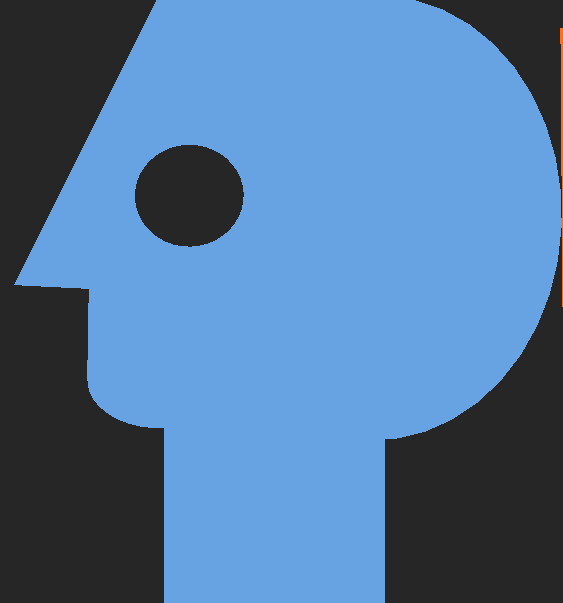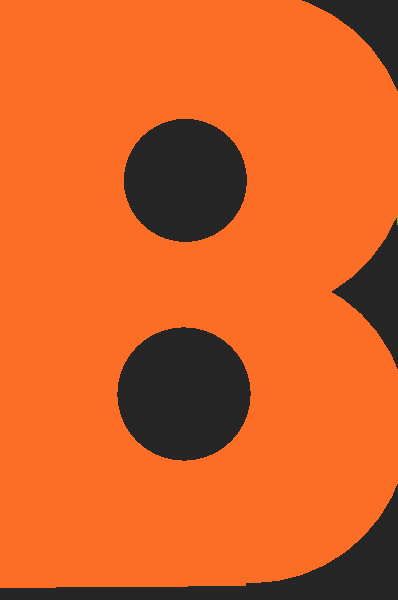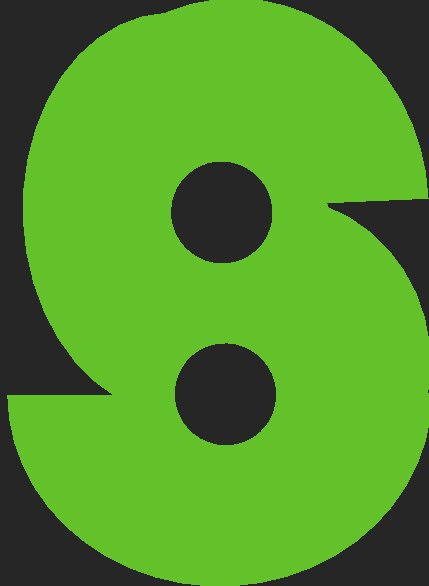
• I made this font before so I checked something and I fixed the lowercase/upercase K So
Why is it "W", "r", "y", "4", and "st" is blocky?
Here is the pbs letters /p b s
Interesting. The characters are so heterogeneous that this font could be good for ransom notes. Fix the spacing.
PBS 1984
Sry about the split accuracy the same as the pbs 1984 split